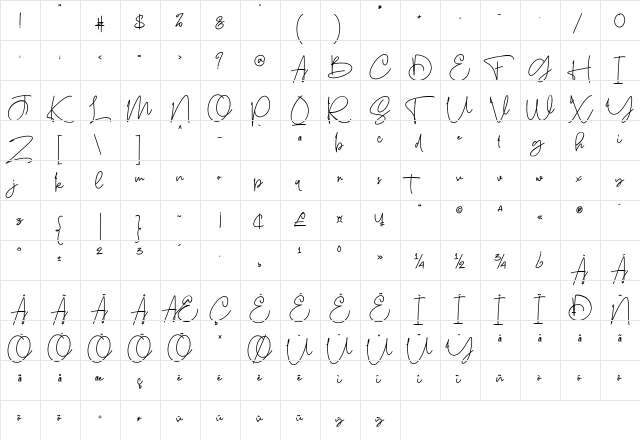
Sanpaullo Regular
| Foundry | Garisman Studio |
| Designer | Risman Ginarwan |
Design Context for Sanpaullo Typeface
Sanpaullo is a composed and adaptable typeface that performs quietly and consistently across a wide range of design contexts.